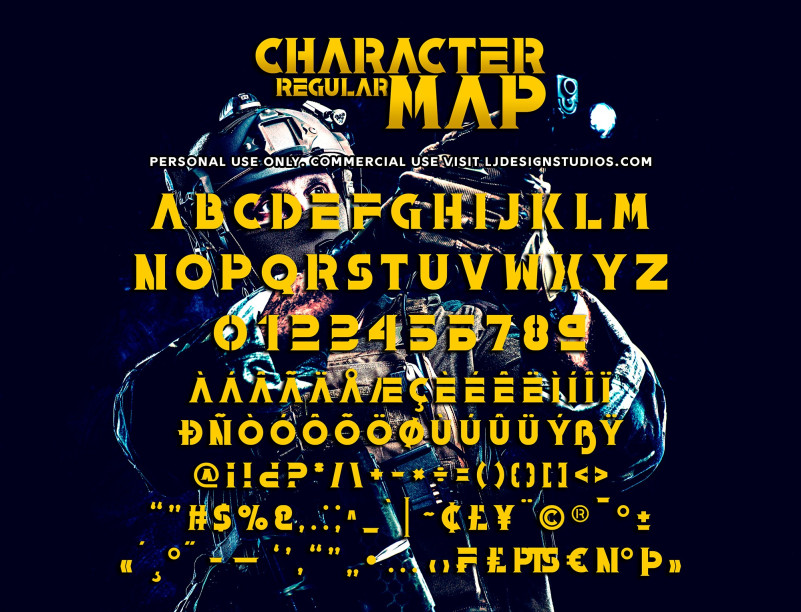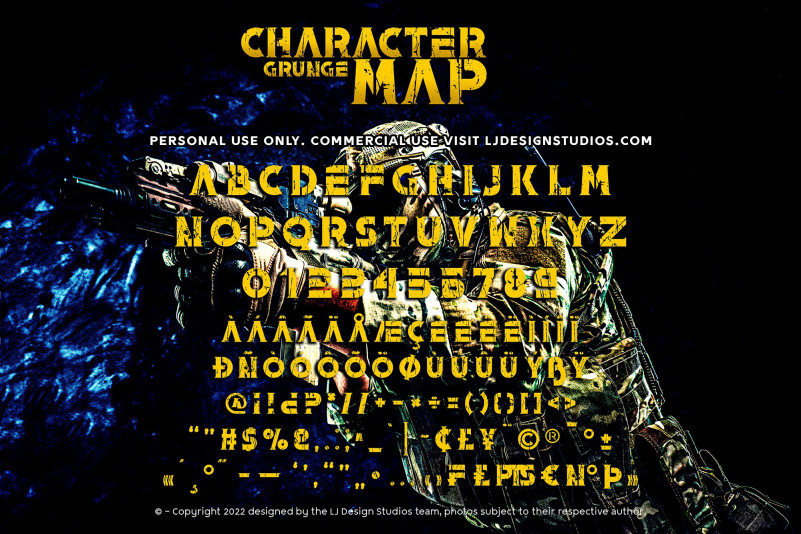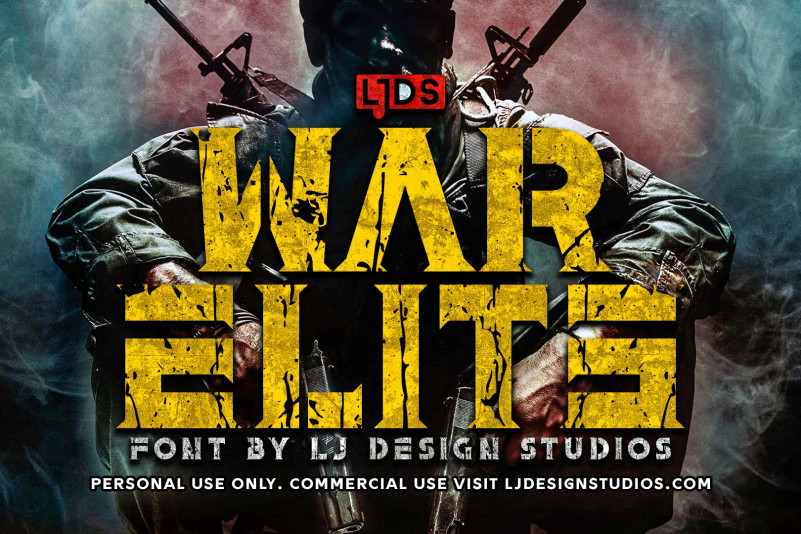
War Elite Display Font is made for a bold impression on each of your works. It is composed of a worn texture together with a geometric design alluding to its name title. This font can be used for title and text display so it is suitable for all types of designs, whether posters, flyers, banners, t-shirts, screen printing, magazines, newspapers, logos, and others.